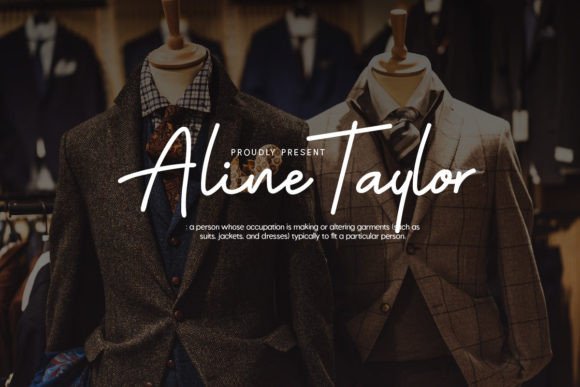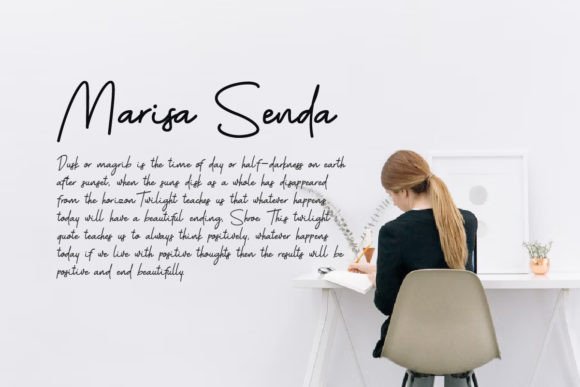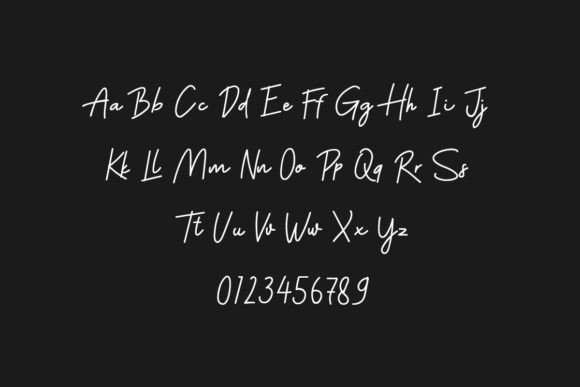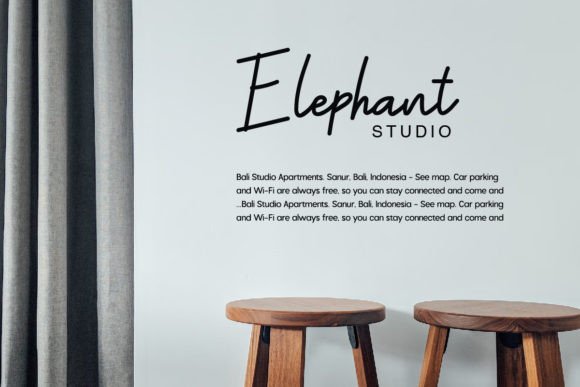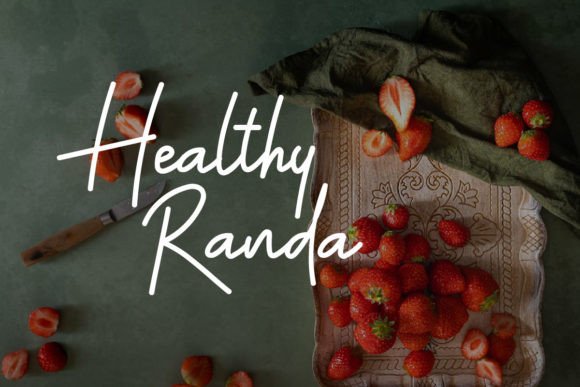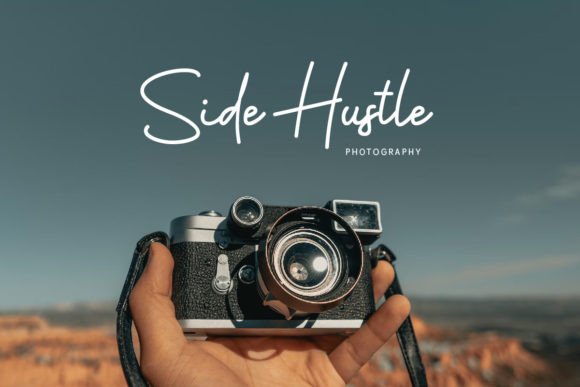
Hello Dine Font: A Lovingly Crafted Signature Script Typeface
Hello Dine is a beautiful signature script typeface that has been carefully crafted to bring a natural feel to all your designs. This font is perfect for designers and crafters who want to add a personalized, handwritten touch to their projects. With its casual, neat, and elegant appearance, Hello Dine is an excellent choice for a wide range of design applications.
The Characteristics of Hello Dine Font
Hello Dine font is a script typeface that boasts a unique and charming appearance. Its casual and elegant feel makes it perfect for designs that require a personal touch. The font has a natural, handwritten look that is both soothing and inviting. The letters are carefully crafted to create a flowing, connected script that is easy to read and visually appealing.
Key Features of Hello Dine Font
- Signature Script Typeface: Hello Dine is a signature script typeface that is designed to mimic the look of handwritten text.
- Casual and Elegant: The font has a casual and elegant appearance that makes it perfect for a wide range of design applications.
- Natural Feel: Hello Dine has a natural, handwritten look that brings a personal touch to all your designs.
- Neat and Legible: The font is neat and legible, making it easy to read and understand.
Uses of Hello Dine Font
Hello Dine font is versatile and can be used in a wide range of design applications, including:
- Branding and Logo Design: The font is perfect for creating unique and memorable brand identities.
- Wedding and Event Design: Hello Dine is a popular choice for wedding and event designs, such as invitations, programs, and signage.
- Packaging Design: The font can be used to create eye-catching packaging designs that stand out on store shelves.
- Digital Design: Hello Dine can be used in digital designs, such as social media graphics, email headers, and website titles.
Why Choose Hello Dine Font?
There are many reasons why designers and crafters choose Hello Dine font for their projects. Here are a few:
- Unique and Charming: Hello Dine has a unique and charming appearance that sets it apart from other fonts.
- Easy to Read: The font is easy to read and understand, making it perfect for designs that require clear communication.
- Versatile: Hello Dine can be used in a wide range of design applications, from branding and logo design to packaging and digital design.
- High-Quality: The font is of high quality, with careful attention to detail and a professional finish.
Tips for Using Hello Dine Font
Here are a few tips for using Hello Dine font in your designs:
- Use it Sparingly: Hello Dine is a bold and eye-catching font, so use it sparingly to avoid overwhelming your design.
- Pair it with Other Fonts: The font pairs well with other fonts, such as sans-serif fonts, to create a visually appealing contrast.
- Experiment with Colors: Hello Dine looks great in a range of colors, so experiment with different colors to find the one that works best for your design.
Hello Dine font is a beautiful and versatile signature script typeface that is perfect for designers and crafters who want to add a personalized, handwritten touch to their projects. With its casual, neat, and elegant appearance, Hello Dine is an excellent choice for a wide range of design applications. Whether you’re creating a brand identity, designing a wedding invitation, or packaging a product, Hello Dine is a great font to choose.